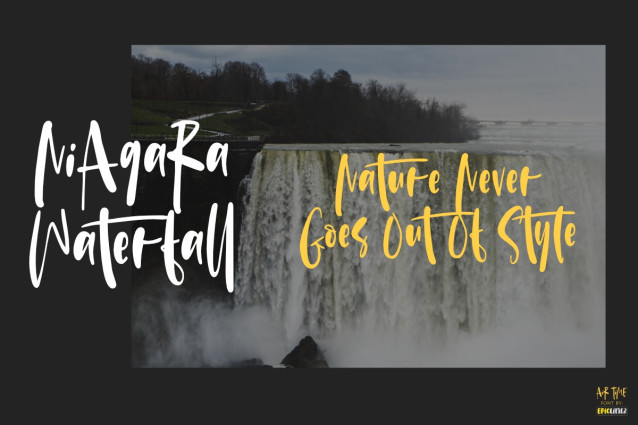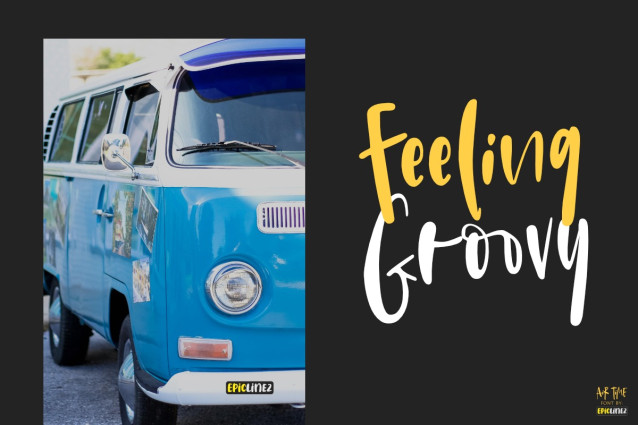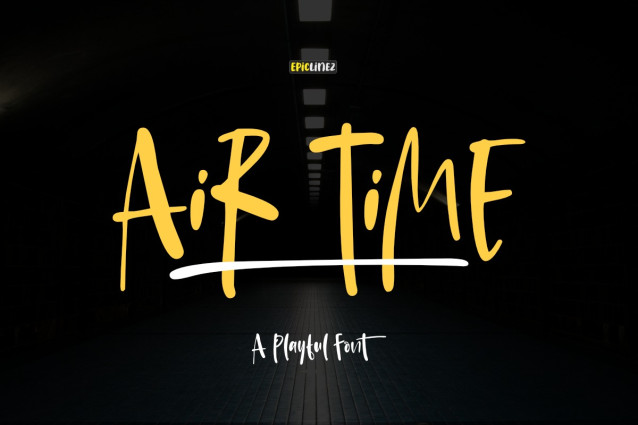
Air Time Font
Air Time Font is a cute and fun display font. Its simple and playful style makes it fitting to a wide range of designs, so add it confidently to your informal or casual ideas, and you will love the results.
The font Air Time contains OpenType features such as ligatures with alternates or swashes.